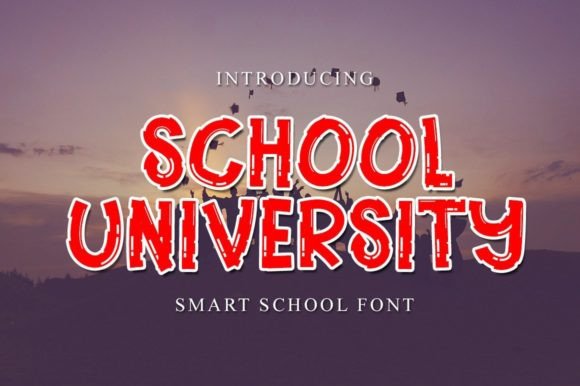
School University: A Versatile and Elegant Font for Diverse Projects
When it comes to choosing a font for design projects, the right typeface can make a significant difference. School University is one such font that stands out for its unique blend of freshness, cleanliness, and elegance. Designed with simplicity in mind, this font offers a versatile solution for both formal and informal applications. Its clean lines and friendly appearance make it an appealing choice for a wide range of design needs.
What sets School University apart from other fonts is its ability to balance professionalism with a touch of warmth. Unlike more rigid or overly decorative typefaces, School University maintains a sense of approachability without sacrificing clarity. This makes it particularly well-suited for projects where readability and visual appeal are equally important.
Understanding the Unique Characteristics of School University
School University is a sans-serif font, which means it lacks the small projecting features called serifs. This design choice contributes to its modern and minimal aesthetic. The font’s uniform stroke width and open letterforms enhance legibility, making it ideal for both print and digital media. Whether used in headings, body text, or logos, School University retains a consistent and polished look.
The font’s name suggests a connection to educational settings, but its application extends far beyond that. Its clean and structured form makes it suitable for branding, web design, presentations, and even personal projects. The font’s versatility allows it to adapt to different contexts while maintaining a cohesive visual identity.
One of the key strengths of School University is its ability to convey a sense of clarity and organization. This makes it a strong candidate for use in academic or professional environments where a straightforward and reliable appearance is essential. At the same time, its subtle curves and gentle proportions add a human touch, preventing it from feeling too cold or impersonal.
Comparing School University with Similar Fonts
When evaluating fonts for a specific project, it’s helpful to compare options based on their style, usability, and suitability for different contexts. School University shares some similarities with other popular sans-serif fonts like Arial, Helvetica, and Open Sans. However, it distinguishes itself through its distinct character and visual personality.
Arial and Helvetica are widely used for their neutrality and broad compatibility. They are excellent choices for general-purpose typography, but they may lack the individuality that School University offers. Open Sans, another popular option, is known for its readability and modern feel, but it leans more toward a technical or corporate aesthetic. In contrast, School University strikes a balance between professionalism and friendliness, making it a compelling alternative for designers seeking a more expressive yet functional typeface.
For those looking for a more decorative or stylized font, School University may not be the best fit. Fonts like Comic Sans or Brush Script offer a more playful or artistic tone, but they may not work as well in formal or business-oriented designs. School University, on the other hand, provides a middle ground—offering a level of personality without compromising on clarity or versatility.
Best Use Cases for School University
School University is particularly effective in situations where a clear and friendly visual identity is desired. It works well in branding materials such as logos, business cards, and packaging. Its clean design ensures that it remains legible at various sizes, making it suitable for both large-scale and small-scale applications.
In web design, School University can be used for headings, navigation menus, and call-to-action buttons. Its simple structure helps maintain a clean layout, which is especially beneficial for websites that prioritize user experience. When paired with other fonts, it can create a balanced and visually appealing hierarchy without overwhelming the reader.
For educational institutions or content creators, School University can serve as a go-to font for lesson plans, worksheets, and digital learning resources. Its readability and approachable style make it an excellent choice for materials intended for students or lifelong learners. Additionally, it can be used in presentations to maintain a professional yet engaging tone.
Limitations and Considerations
While School University is a strong option for many design projects, it may not be the best choice for every situation. In highly formal or traditional settings, such as legal documents or academic journals, more conventional fonts like Times New Roman or Garamond might be preferred. These fonts have long been associated with authority and professionalism, and their use can reinforce the credibility of the content.
By considering the specific requirements of each design task, users can determine whether School University aligns with their goals. Whether used in a corporate setting, an educational environment, or a creative project, this font has the potential to enhance the visual impact of any work it is applied to.